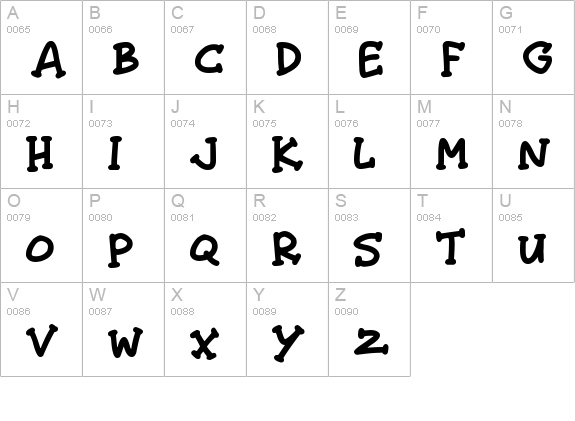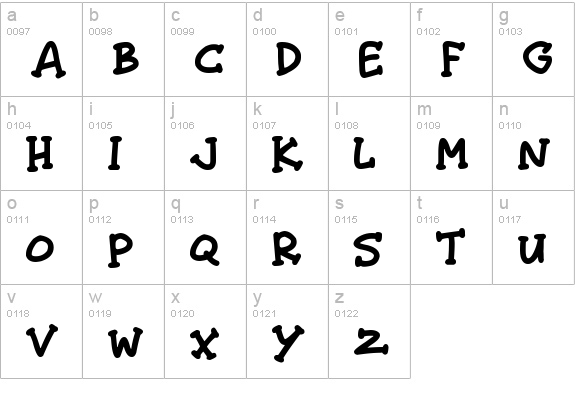
Shenanigans font is a playful and whimsical typeface that exudes charm and character. With its lively curves and quirky details, this font is perfect for adding a touch of fun to any design project. Whether you're working on a party invitation, a children's book, or a creative logo, Shenanigans font will bring a sense of joy and mischief to your work.